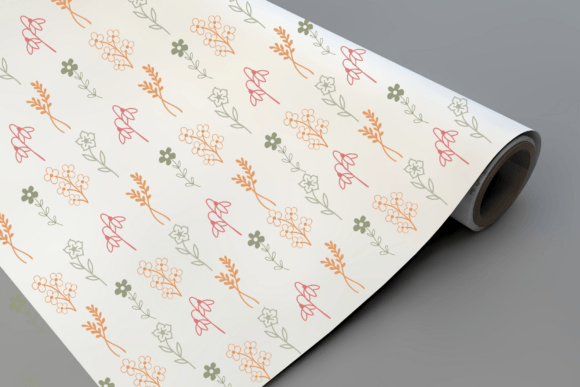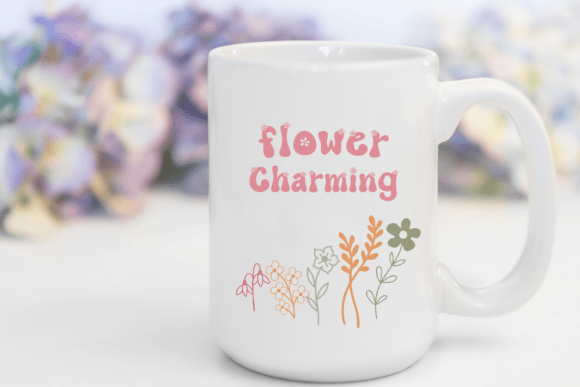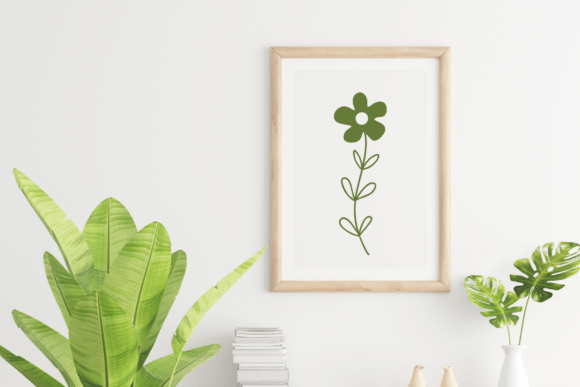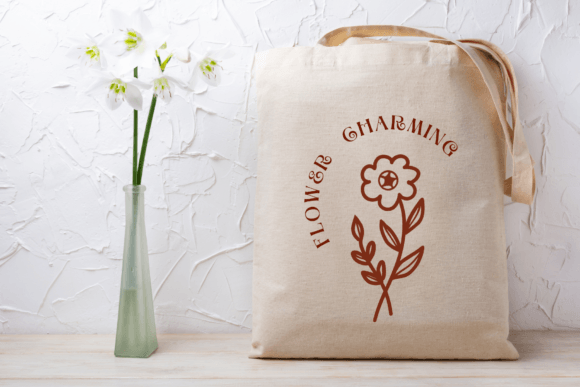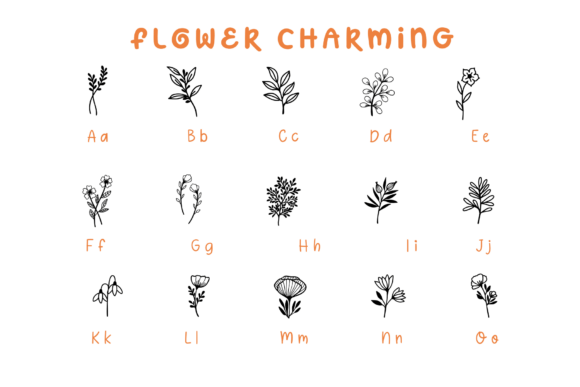
Flower Charming Font
Flower Charming Doodle is a charming dingbat font featuring flower illustrations, perfect for creating eye-catching designs with a touch of cuteness. Ideal for children’s books, greeting cards, creative projects such as wedding invitations, DIY, crafts, decorations, logos, and social media posts and many other creative ideas.